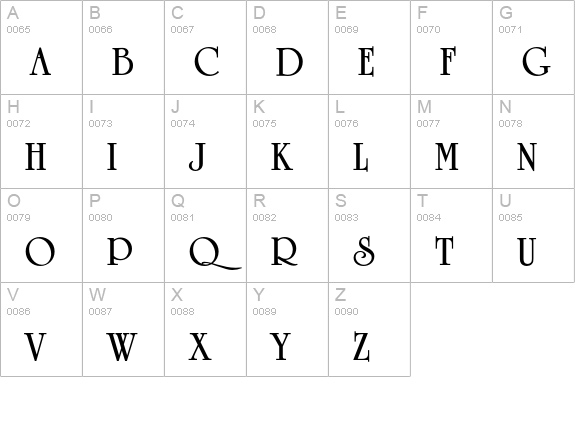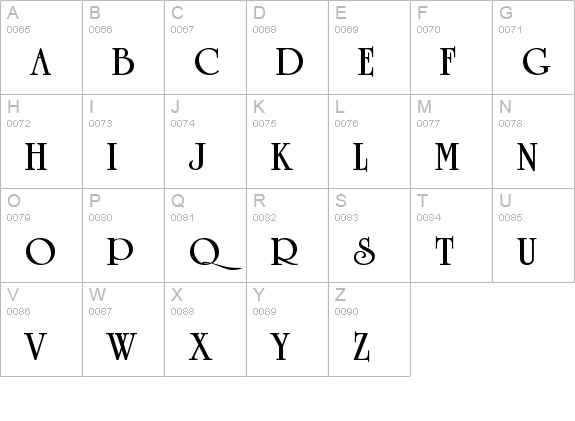
UniversityEF-Bold Font Details
UniversityEF-Bold is a strong, high-contrast variant in the UniversityEF typeface family \xE2\x80\x94 well suited to headlines, attention-grabbing titles, and strong calls-to-action.
UniversityEF-Bold is a versatile and modern font that combines elegance with functionality. Its bold design and strong lines make it perfect for headlines, logos, and other attention-grabbing designs. With its clean and crisp letterforms, this font commands attention and exudes confidence. What sets UniversityEF-Bold apart is its availability as a free download at FontsMarket.com. This means that designers, students, and anyone in need of a powerful and eye-catching font can access it without any cost. The ability to freely download UniversityEF-Bold allows for endless creative possibilities, whether it be for personal or commercial projects. The careful attention to detail in the design of UniversityEF-Bold ensures that each character is bold and impactful, while still maintaining legibility and clarity. The font is optimized for both print and digital mediums, ensuring that it looks stunning in any context. UniversitEF-Bold's wide range of glyphs and characters allows for seamless integration into various languages and writing systems. Its versatility makes it a go-to choice for designers looking to create striking visuals that resonate with a global audience. Overall, UniversityEF-Bold is a font that combines style, functionality, and accessibility. Its bold and captivating design, coupled with its free availability at FontsMarket.com, makes it a must-have for any designer looking to make a lasting impression.